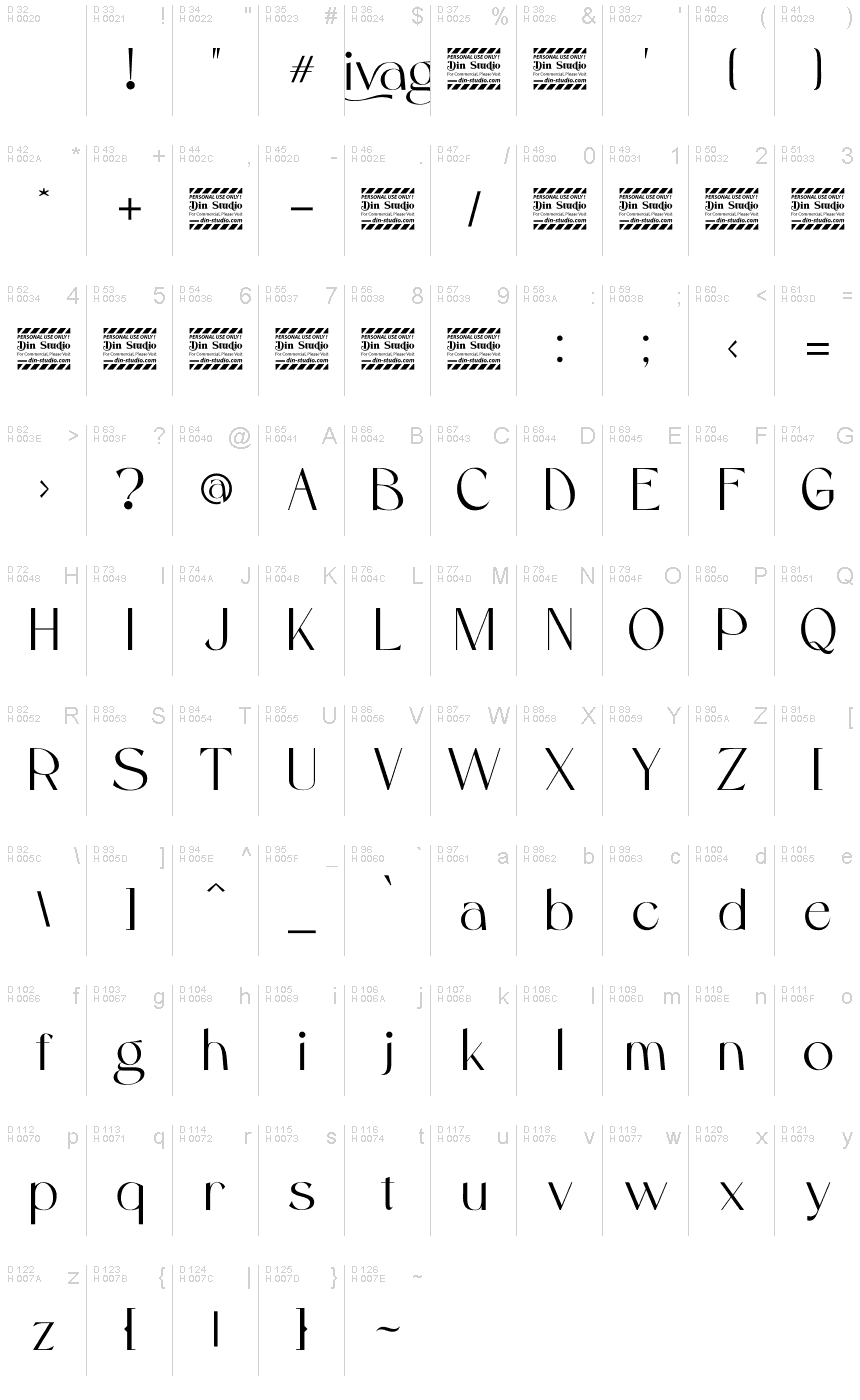
Rivage Personal Use
Rivage, crafted by Din Studio, is an elegant sans serif font with a vintage touch. Its semi-light weight exudes sophistication and grace.
This versatile typeface is perfect for projects that require a touch of elegance, such as wedding invitations, luxury branding, or high-end fashion magazines. Rivage adds a timeless charm to any design and effortlessly captures attention with its refined curves and clean lines.
Elevate your creations with this exquisite font that embodies both vintage allure and modern elegance.